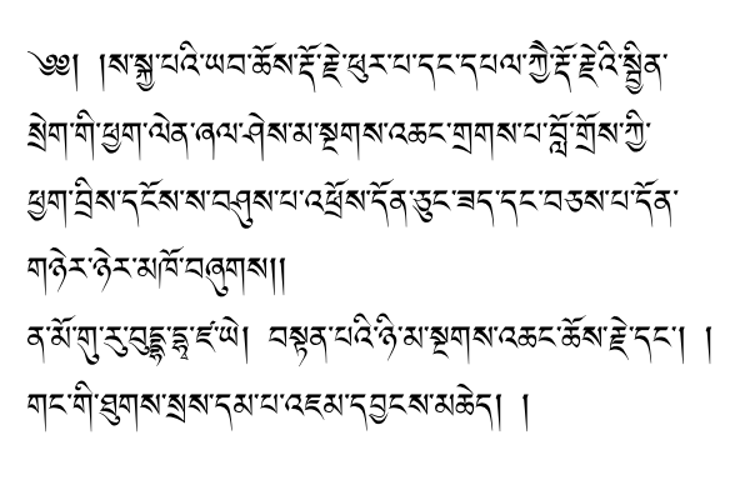
Yagpo Tibetan Sambhota Uni Font
About Yagpo Tibetan Sambhota Uni Font
Yagpo Tibetan Uni Style
Yagpo Tibetan Sambhota Uni it is Tibetan Unicode OpenType font which support full 0x0F00 and GB18030 code table and additional 4400 ligatures. It contain about 11 250 letters which include all tibetan stack letters from texts of Baikal Lake Enlightenment Stupa Zung texts, Kanjur, Tenjur, Open Source Buddhism Library text corpus , ACIP and TBRC texts.
Yagpo Tibetan Sambhota Uni font is designed in Open Source Buddhism Library project and inspired by Sambhota font collection designed by Lama Tenzin Namdak.
Font supported both Tibetan Unicode and GB18030 code table and suitable for PDF composing. If PDF is open by Adobe Acrobat, font give opportunity to copy correct Unicode text from PDF document created in Adobe InDesign.